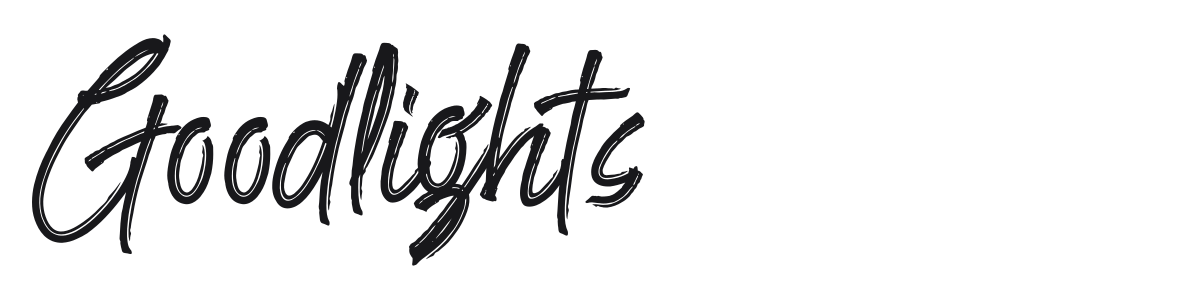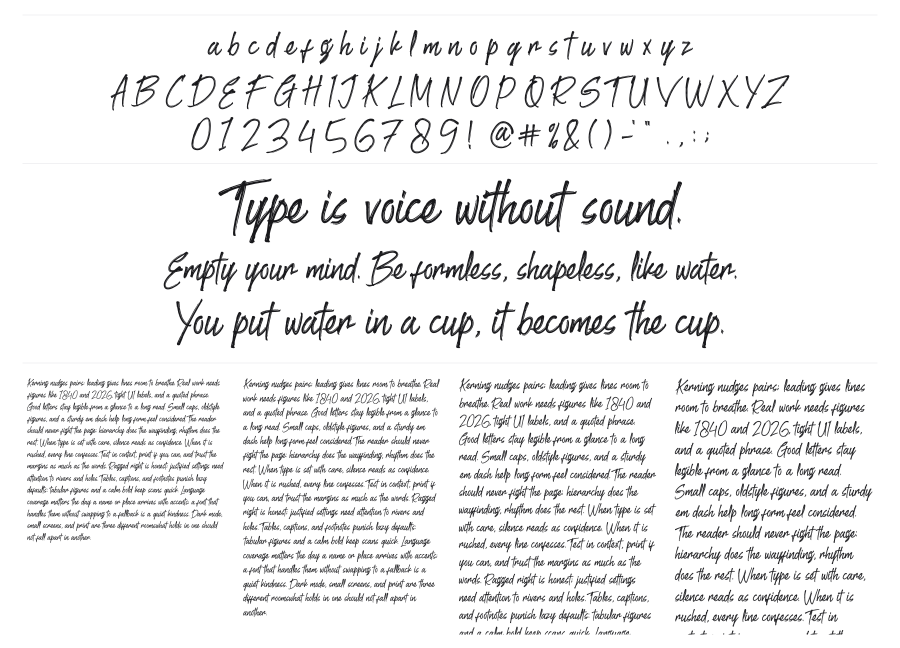
Goodlights
Goodlights is a bold brush script with a raw, inky texture that reads like a marker dragged fast across paper. The rough stroke variation and loose connections give it genuine handmade energy without looking manufactured. Strong for logos, packaging, and any headline that needs character over polish.